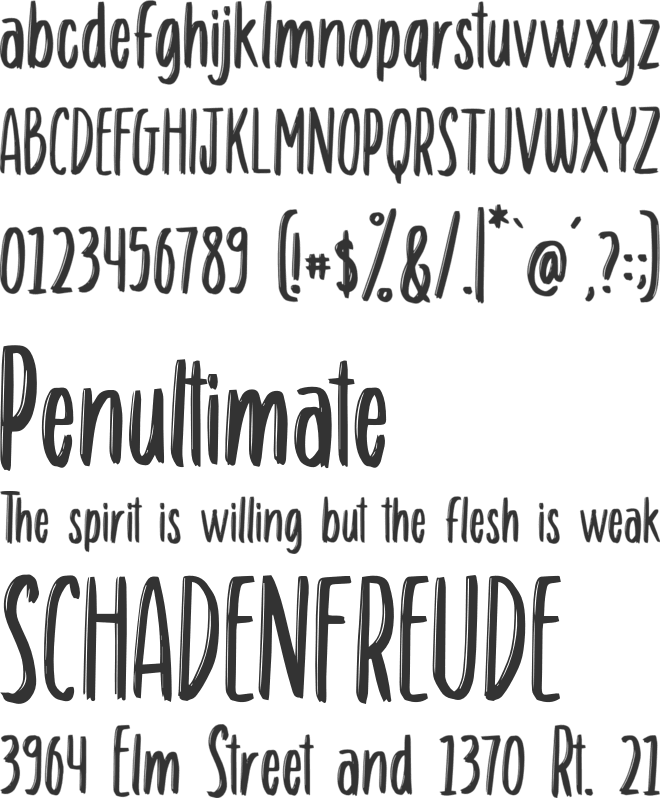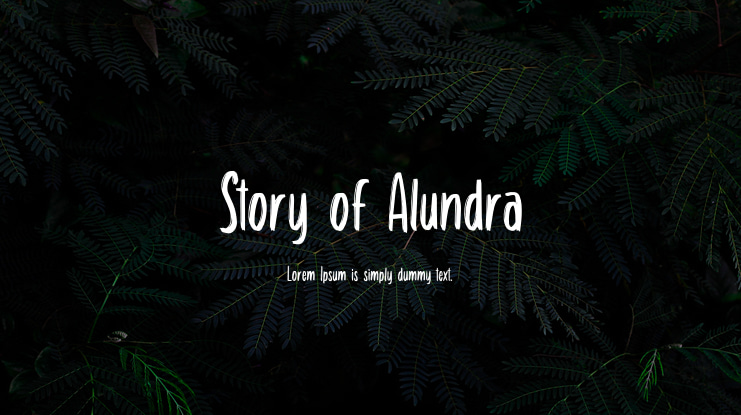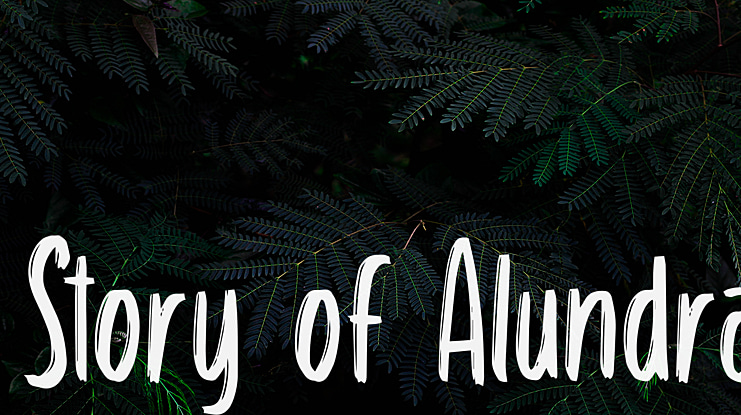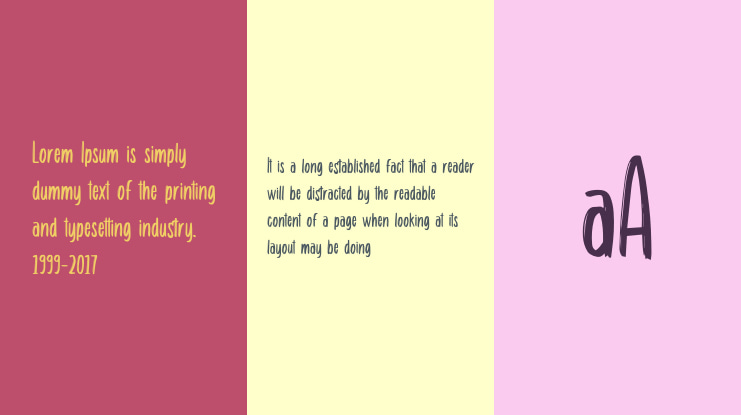
Story of Alundra Font
Story of Alundra is a handmade brush display font. It has cute yet cheerful feel. No matter the topic, this font will be an incredibly asset to your fonts’ library, as it has the potential to elevate any creation.Full Version Download Here :https://typefactory.co/product/story-of-alundra-cute-brush-font/https://www.creativefabrica.com/product/story-of-alundra/ref/501262/